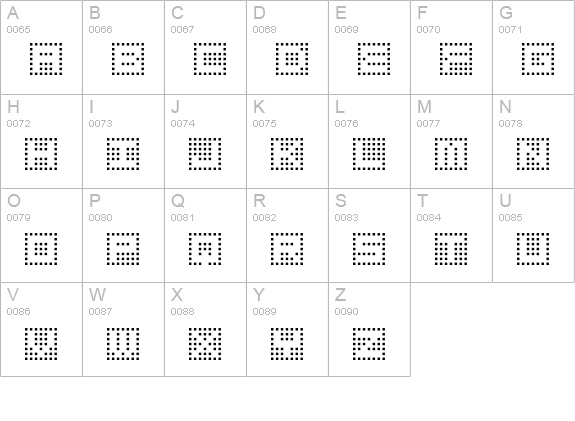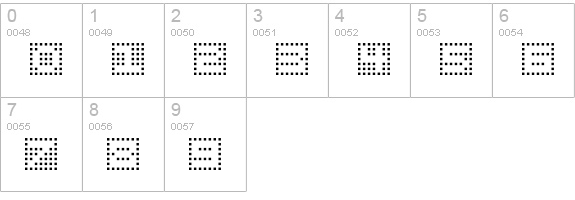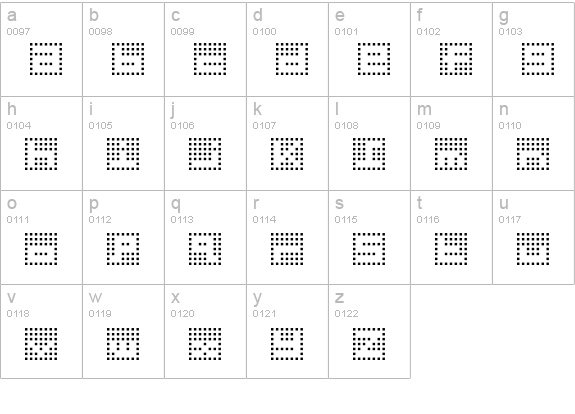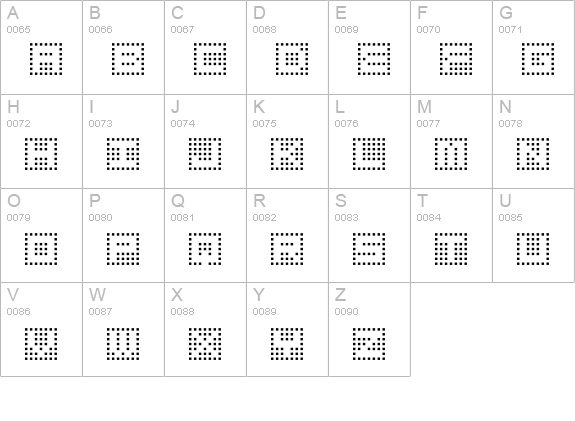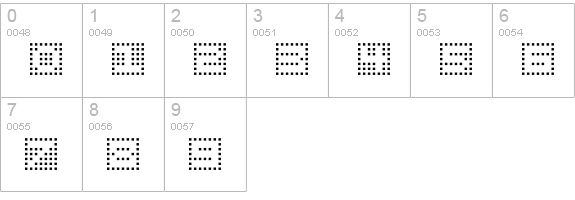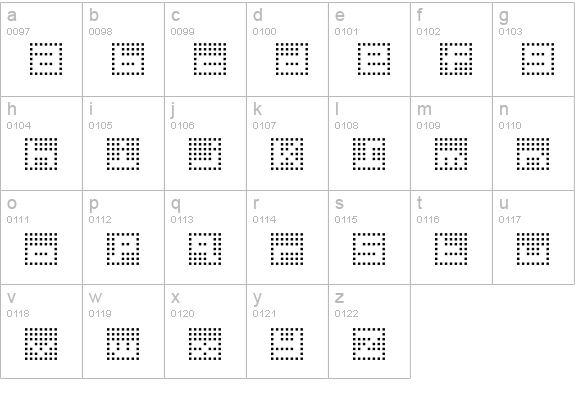
Gridder-NEG font is a modern and sleek typeface that perfectly blends simplicity with sophistication. Designed with clean lines and a minimalist aesthetic, this font is ideal for a wide range of design projects, from websites to branding materials. Featuring a unique grid-based structure, Gridder-NEG font exudes a sense of order and precision that will elevate any design it is used in. The negative space within the characters adds a touch of elegance and refinement, making this font a versatile choice for both digital and print applications. Best of all, Gridder-NEG font is available for free download at FontsMarket.com. Whether you're a seasoned designer looking to add a fresh new font to your collection or a novice designer exploring typography for the first time, Gridder-NEG font is a must-have addition to your toolkit. Download it today and take your designs to the next level with this stylish and contemporary typeface.